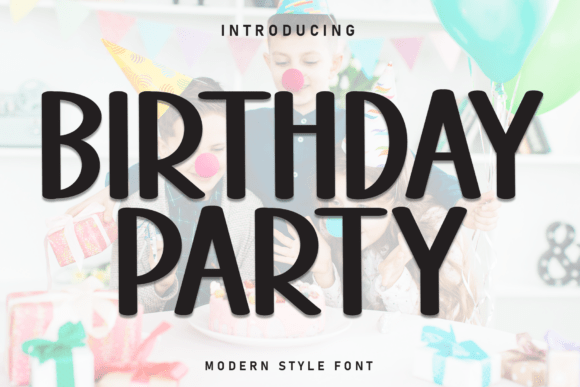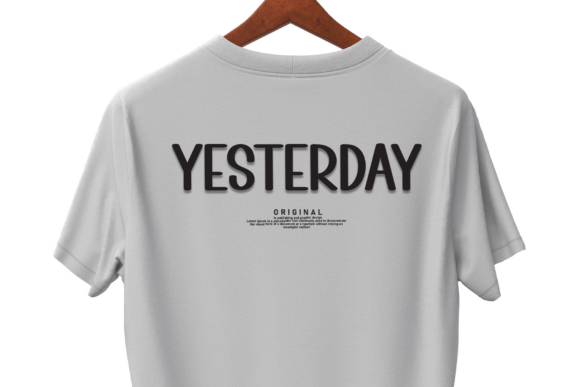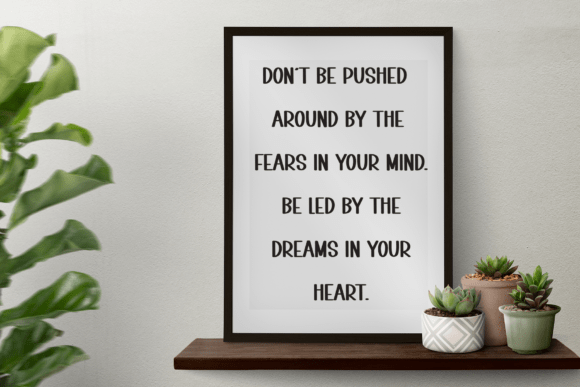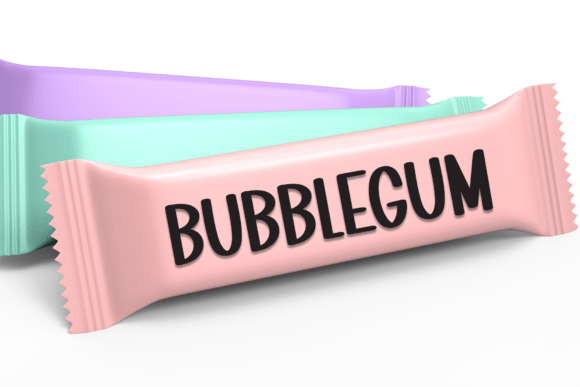
About the Birthday Party Font
Introducing the Birthday Party Font, a beautifully crafted typeface designed to elevate your creative projects. A display font is a typeface designed to stand out and capture attention, making it perfect for headlines, posters, logos, packaging, and branding. Often bold, artistic, or highly stylized, display fonts add personality and visual impact to any design, helping to set the tone and mood with a strong typographic presence.
Birthday Party Font Usage Examples
Birthday Party Font Example